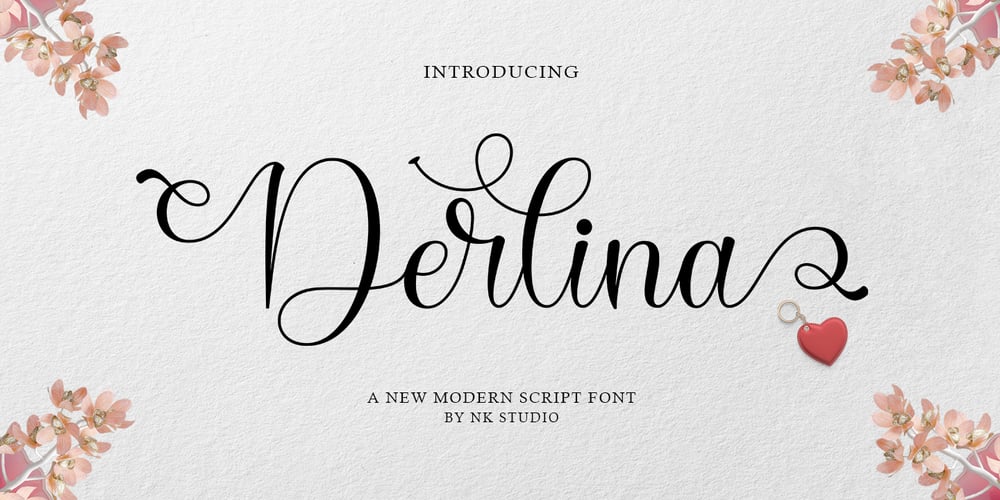
Derlina Script Font Family was designed by Nurul Kamal and published by Nk Studio. Derlina Script contains 1 styles and family package options. Modern font Derlina Script is a modern typeface, each letter has been carefully crafted to make your text look beautiful. With a modern script style, this font will suit a wide variety of projects, for example: weddings, invitations, greeting cards, posters, business cards, quotes, blog headers, branding, logos, fashion, clothing, letters, stationery, etc.The modern Derlina Script font includes alternative glyphs and a beautiful swirl in fonts including style sets, ligatures, etc.The Open Type feature can be accessed using smart Open Type programs such as Adobe Illustrator CS, Adobe Indesign & CorelDraw X6-X7 and Microsoft Word. And this Font has provided PUA unicode (custom coded font). so that all stunts are fully accessible to the craftsman or designer.